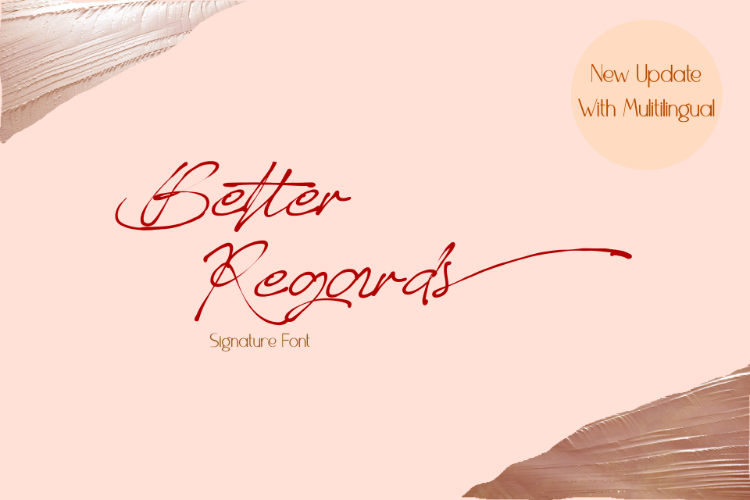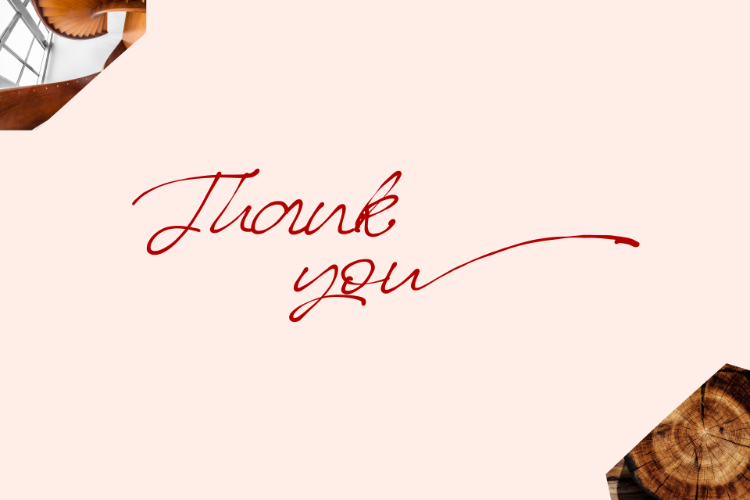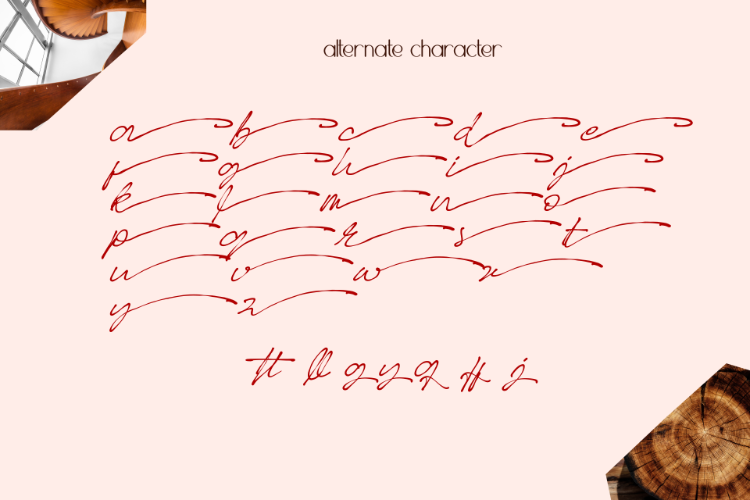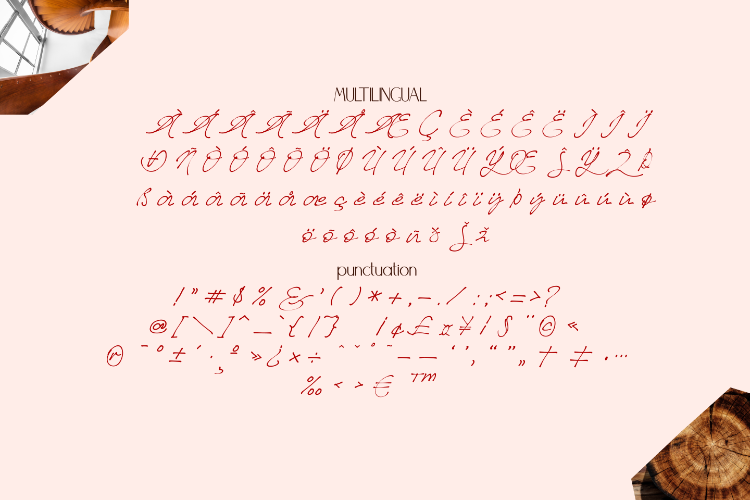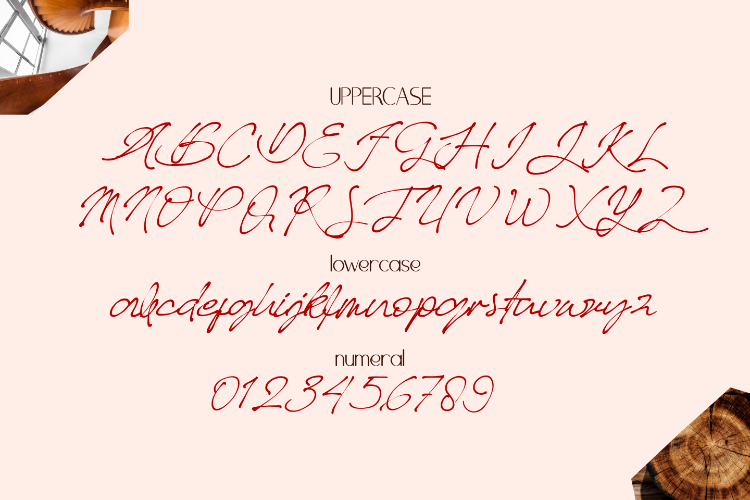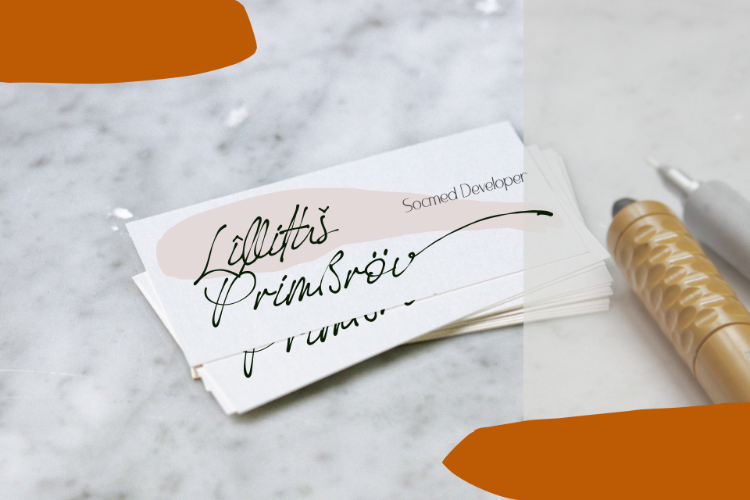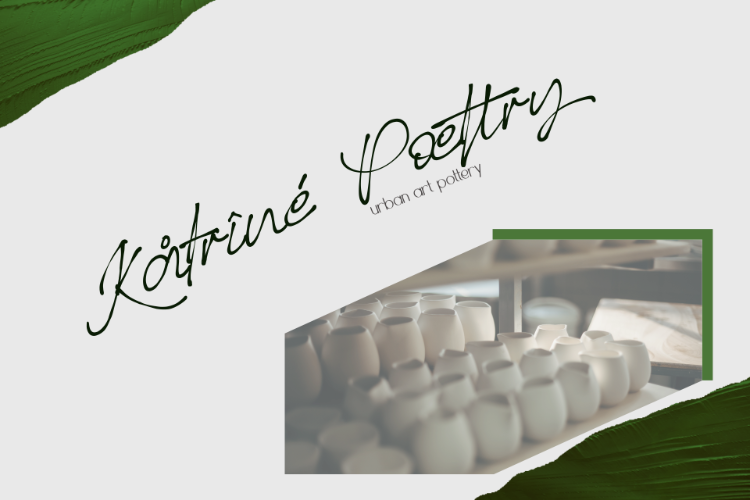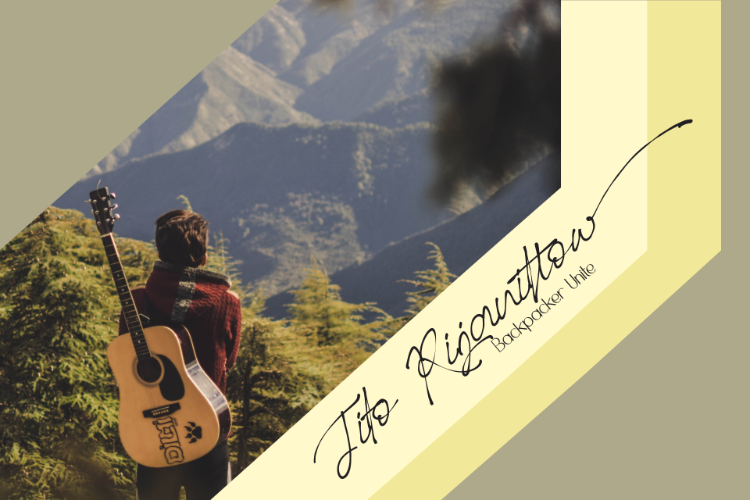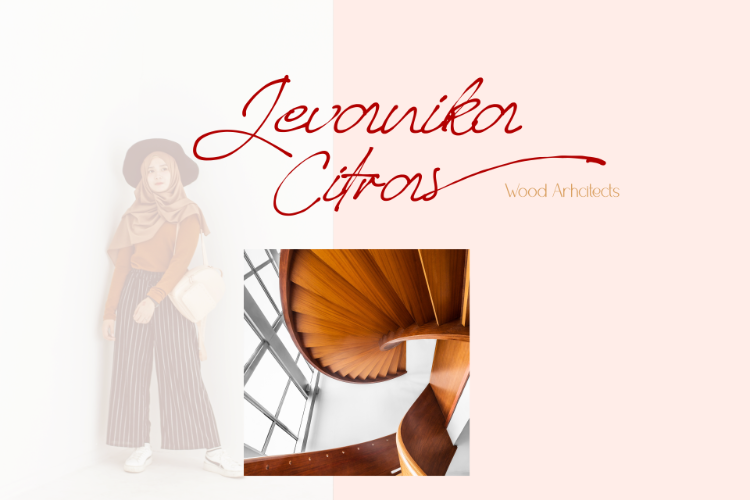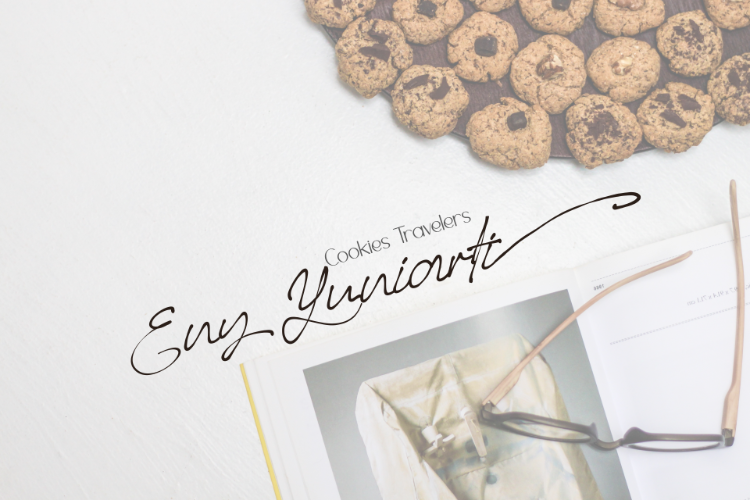
Better Regards is a lovely and delicate script font that exudes elegance and class. This font was particularly crafted for those who need a beautiful and refreshing look to their designs.